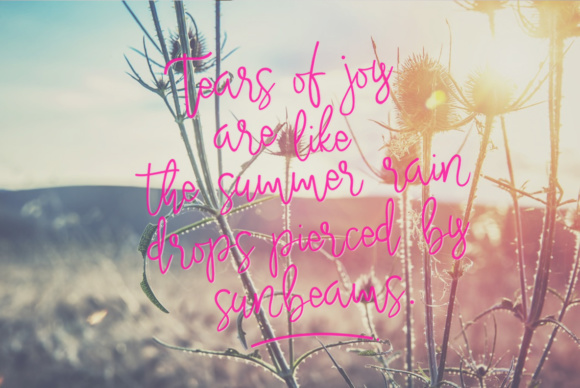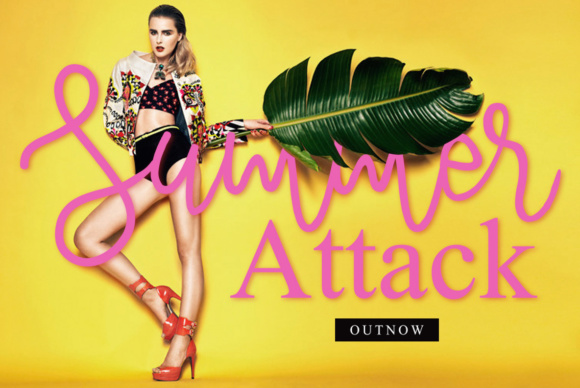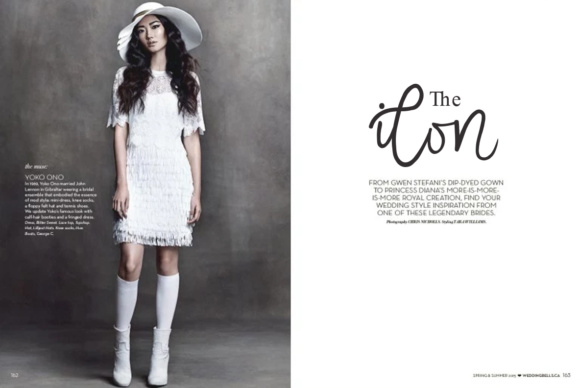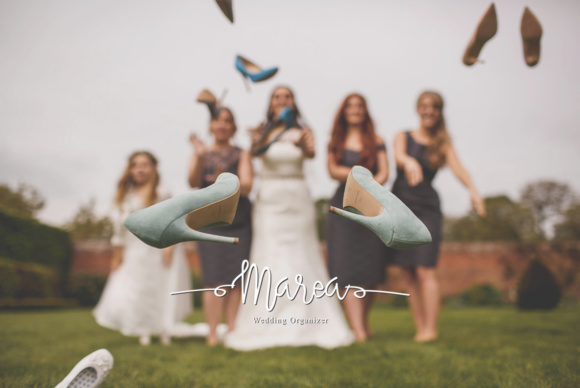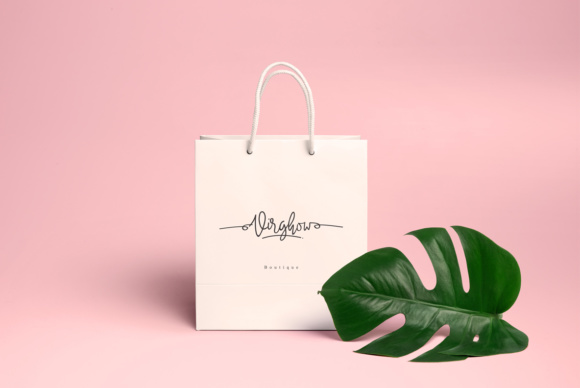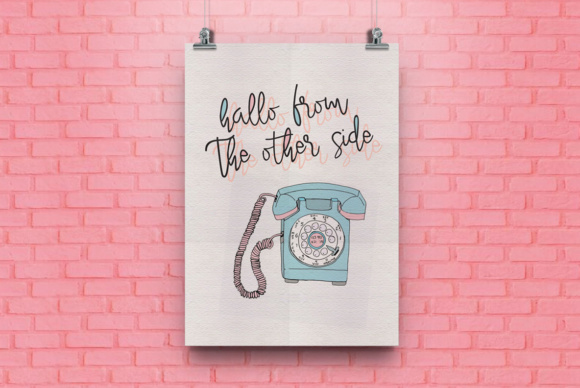
Introduction to Emelly Font
As a designer, you’ve likely experienced that moment when a project’s visual identity clicks into place – the perfect balance of colors, shapes, and typography. For me, that moment happened when I stumbled upon the Emelly Font. Its stylish, clean outline creates a beautiful typographic harmony that elevates any creative project. Whether you’re crafting a logo, designing a wedding invitation, or creating a social media post, Emelly Font is the perfect companion to help you achieve that ‘aha’ moment.
What sets Emelly Font apart is its versatility and high quality. With a transparent background, it’s a design resource that can be easily layered over any image or background, making it a valuable addition to any designer’s toolkit. And the best part? It’s available for free download, making it accessible to designers of all levels. In this article, we’ll dive deeper into the world of Emelly Font and explore its many uses and benefits.
Key Features of Emelly Font
- High-quality, unique font design perfect for creative projects requiring a distinctive touch.
- Transparency support for backgrounds, allowing for seamless integration with images and graphics.
- Designed at a high resolution (300 DPI) for crisp and clear display in print and digital applications.
- Supports a wide range of languages, making it suitable for international design projects.
Honest Review: Emelly Font
I recently had the chance to work with the Emelly Font and I’m excited to share my honest review. This font has quickly become one of my go-to design resources for creative projects.
- ✨ High-quality design that’s perfect for a variety of applications, from digital to print
- ✨ Easy to read, even at small font sizes
- ✨ Comes with a transparent background, making it easy to use on any background
- ⚠️ Limited character set, which may not be ideal for longer blocks of text
- ⚠️ Not suitable for use in situations where a large font size is required
Overall, I’m really impressed with the Emelly Font. It’s a great addition to any designer’s toolkit and can add a touch of elegance to any creative project. And the best part? It’s available for free download, making it an excellent resource for designers on a budget.
Tips for Getting the Most Out of Emelly Font
Use Emelly Font on a transparent background to create a clean and minimalist design. Experiment with different font sizes and styles to add visual interest to your design. You can also use Emelly Font in combination with other design elements to create a unique and eye-catching design.
Emelly Font is suitable for various creative projects, including graphic design, digital art, and typography. It can be used for business cards, logos, posters, and other marketing materials. You can also use Emelly Font in educational materials, such as presentations and brochures.